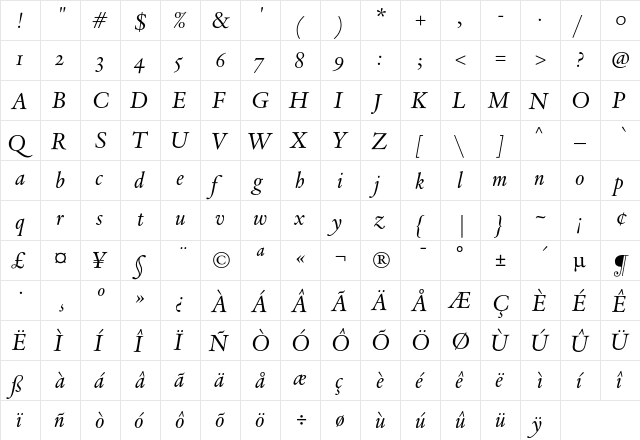
DTLVandenKeereSD Italic
Design Context for DTLVandenKeereSD Typeface
DTLVandenKeereSD offers clean, dependable letterforms without strong stylistic allegiance, making it a practical choice for designers who need flexibility. The slanted form adds forward momentum and visual energy.
Pro Tip: Use DTLVandenKeereSD for emphasis, pull quotes, and subheadings where its slanted energy can add rhythm to the layout.